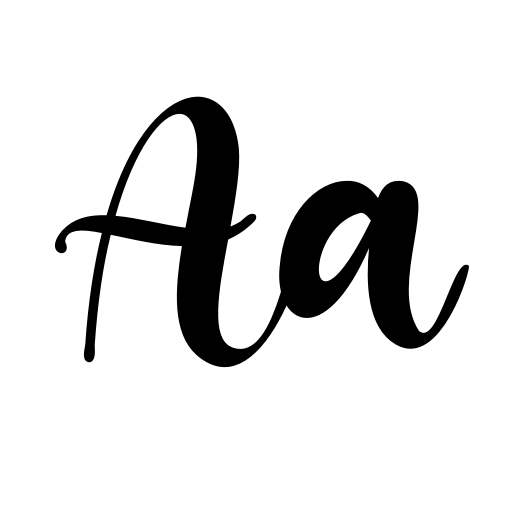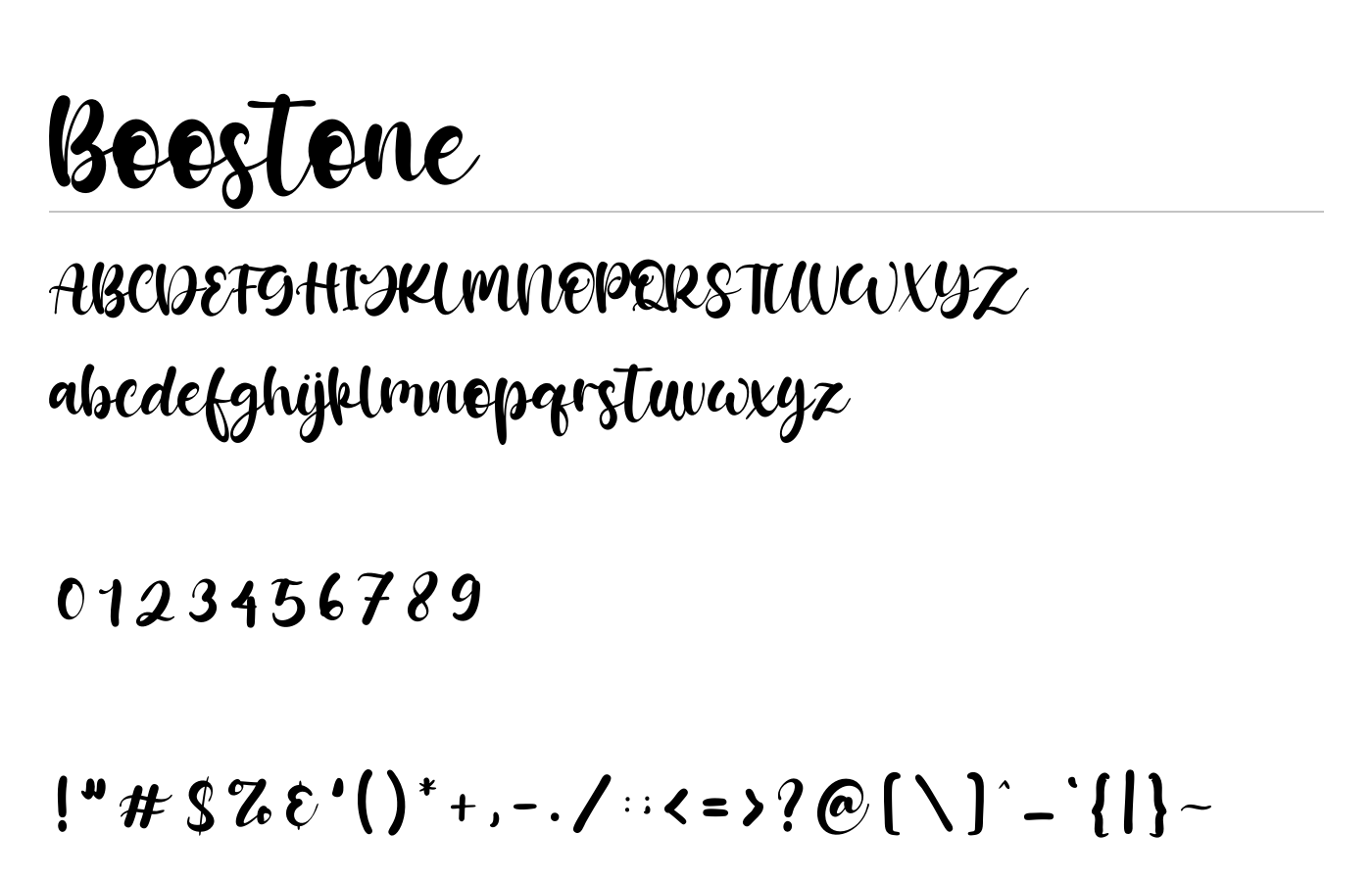
Boostone is a lively script font with a bold, brush-lettered style that combines thick and thin strokes for an informal yet confident look. Its connected, flowing letterforms add a playful and energetic vibe, making it perfect for creative branding, invitations, and eye-catching headlines that want to convey friendliness and modern flair.
Boostone Font
About Boostone Font